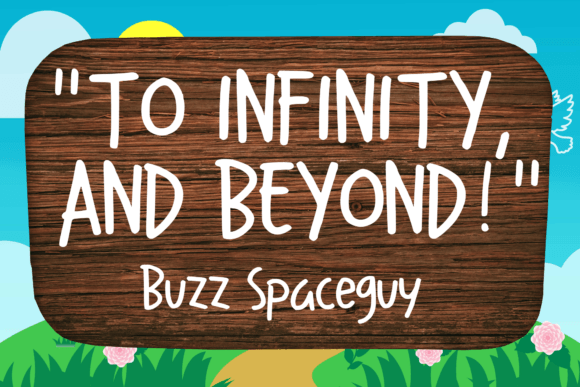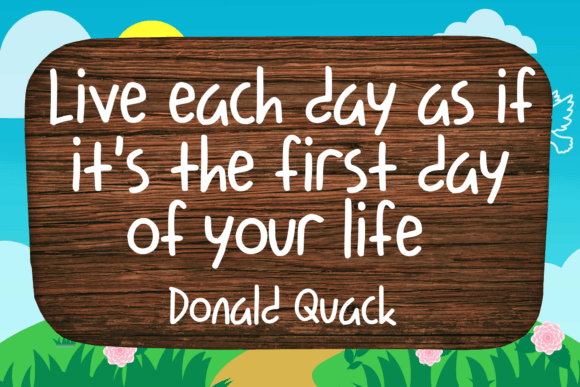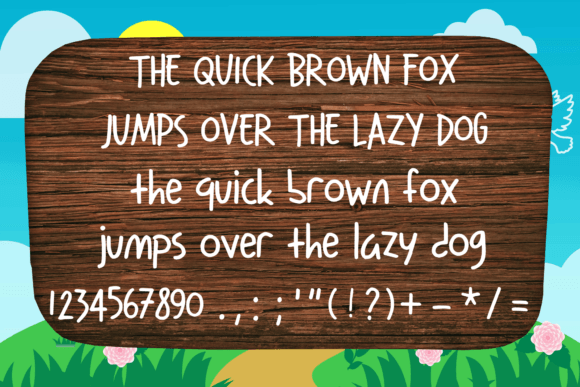
Introduction to Safari Marker Font
Safari Marker is a playful and fun marker font.
It will elevate a wide range of design projects to the highest level You can use this font for many design ideas such as stickers, t-shirt designs, amazing logo designs, magazine or book covers, comics, cartoon drawings, and many more.
Safari Marker Font offers exceptional quality and versatility, making it a valuable addition to your design toolkit. Whether you’re creating for personal projects or commercial use, Safari Marker Font delivers professional results.